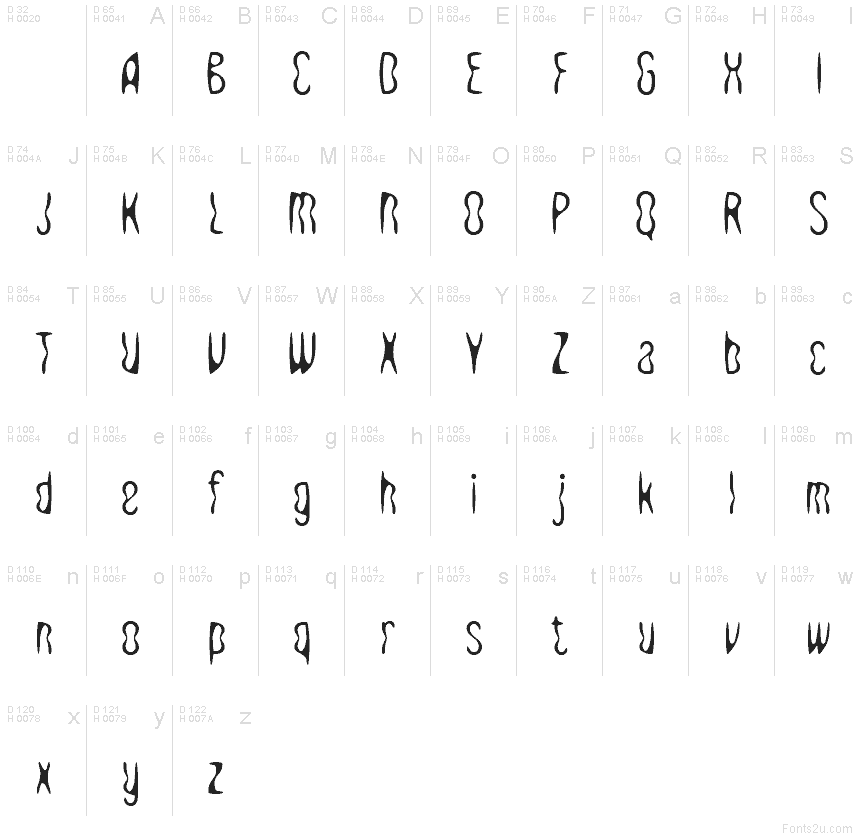
CSDeviousDrawn-Regular Demo
CS Devious Drawn font by Craft Supply Co. is a modern display font that draws attention with its distorted and unusual shapes. The collection, which mixes uppercase characters, numbers and punctuation marks features variation in style where every character appears different from the next on the most level. Its condensed width is also visible and helps achieve an artistic flair.
Given its quirky, whimsical appearance, this font can be used for posters, magazine covers and layouts, websites and apps designs such as banners as well as more compact items like business cards or stationery designs. It will also fit in branding projects where a fresh modern aesthetic is required.